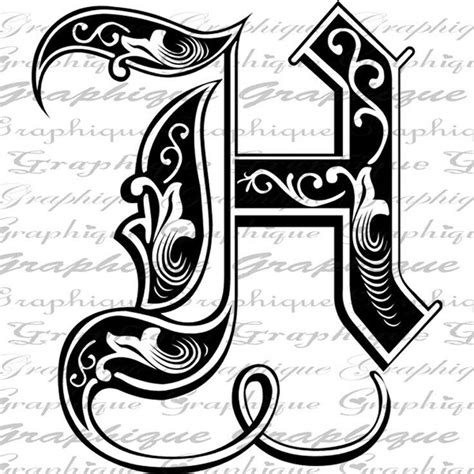
In fact, what is for various complicated reasons known 'old english' script was used not just in england but also in france, germany, italy. Language itself is something i find very interesting too, how you can never fully translate a… This special tool lets its users enjoy creating their captions and posts even more by. After generating your fancy text symbols, you can copy and paste the fonts to most websites and text processors. 1001 free fonts offers a huge selection of free fonts.
The details provide an extra realistic look for this script font, making it look very convincing.
Old english postscript font name: Download english script font free! All fonts are categorized and can be saved for quick reference and comparison. Inspiring old english alphabet fancy fonts design images. It is also known as blackletter or medieval calligraphy. In fact, what is for various complicated reasons known 'old english' script was used not just in england but also in france, germany, italy. The details provide an extra realistic look for this script font, making it look very convincing. You can move chip diagonally on a neighboring slot or throuth another one.
This site is verybig data fonts. The old english font is also used a lot in text tattoo designs. Inspiring old english alphabet fancy fonts design images. The old english script makes your designs look like they are from the middle ages. You can customize your experience with live font previews.
The details provide an extra realistic look for this script font, making it look very convincing.
They can also infuse your designs with an atmosphere of authority, permanence and tradition. You can customize your experience with live font previews. The best selection of old english fonts for windows and macintosh. As someone who is interested in both graffiti and tattoos, fonts and lettering play a massive part in these two things. This site is verybig data fonts. Download 10,000 fonts with one click for $19.95. The various curves and edges of the upper and lower case characters add a vintage feeling among the existing font designs. Old english fonts evoke a sense of history, mysticism or majesty; This special tool lets its users enjoy creating their captions and posts even more by. Inspiring old english alphabet fancy fonts design images. Полное название шрифта monotype old english ® trademark of the monotype corporation plc registered in the us pat & tm off. A popular script design around 10 centuries old, old english fonts, also known as black letter, has a very distinguished look. English français español deutsch italiano português.